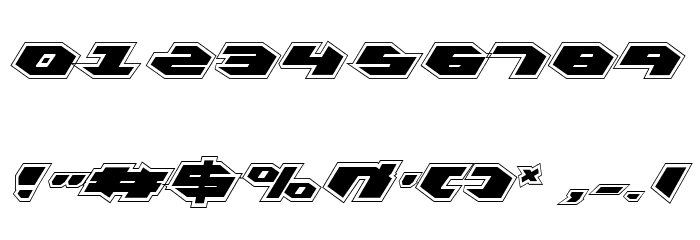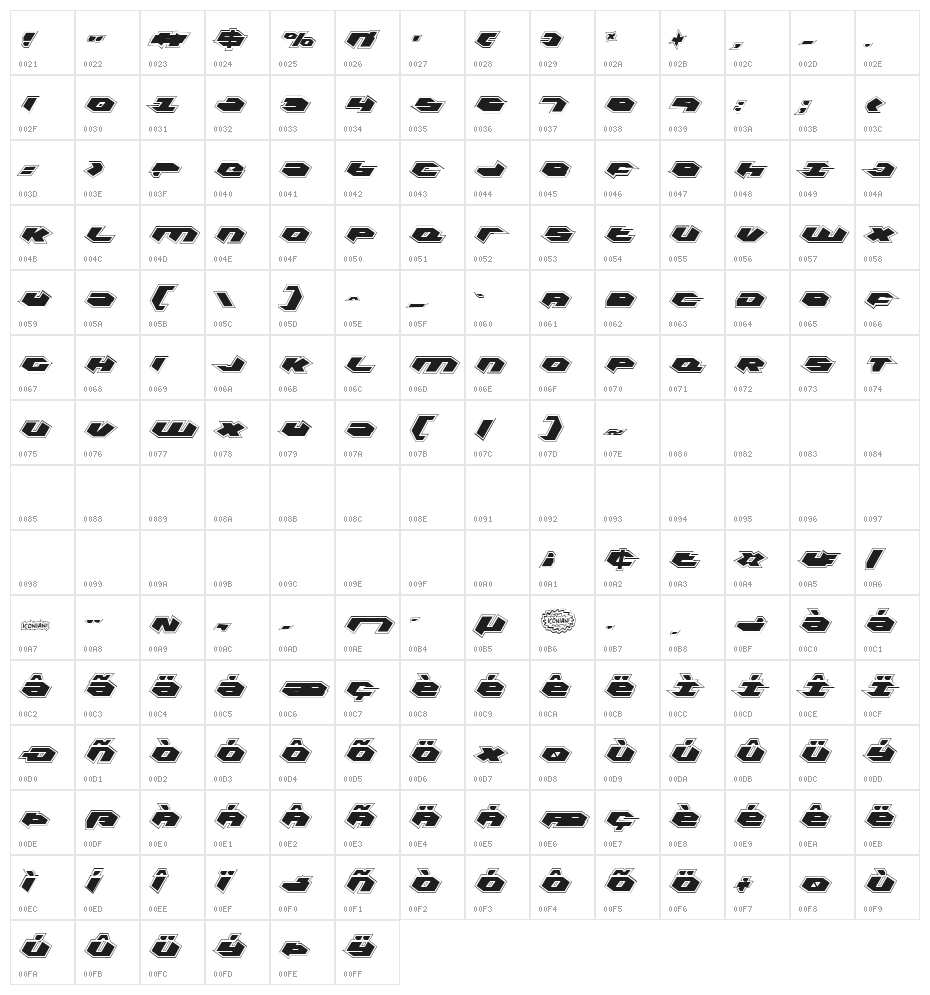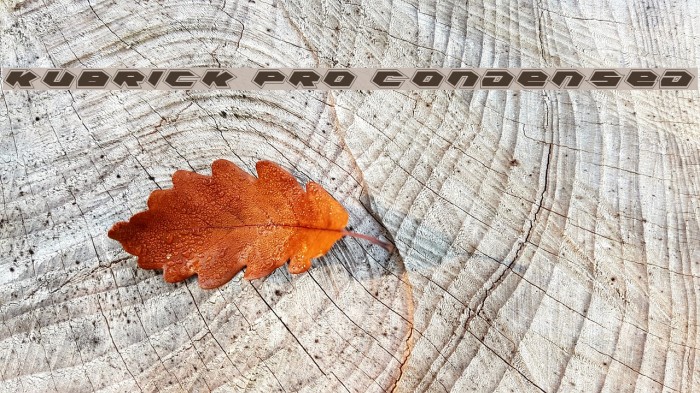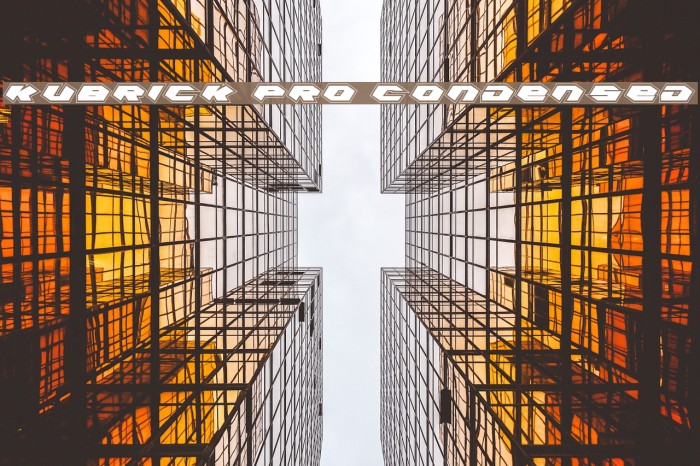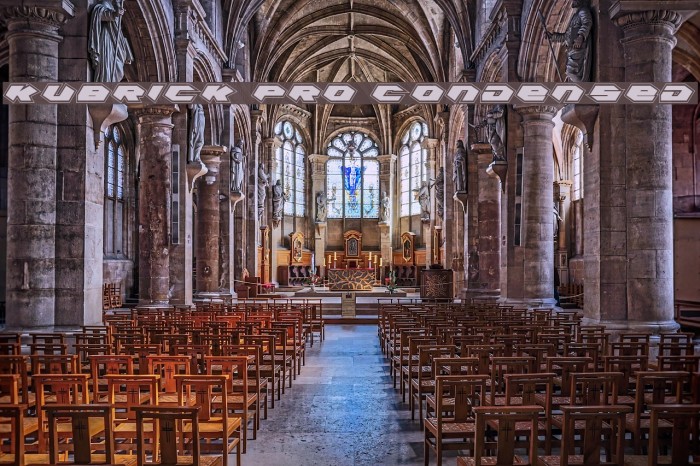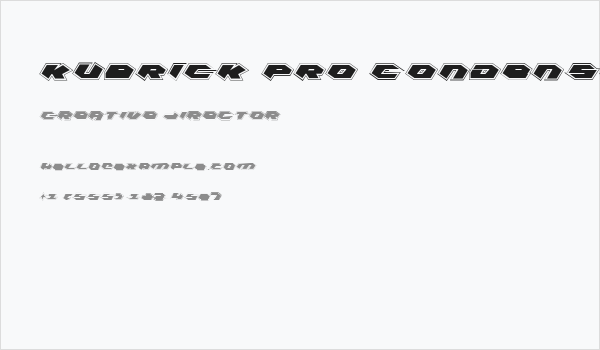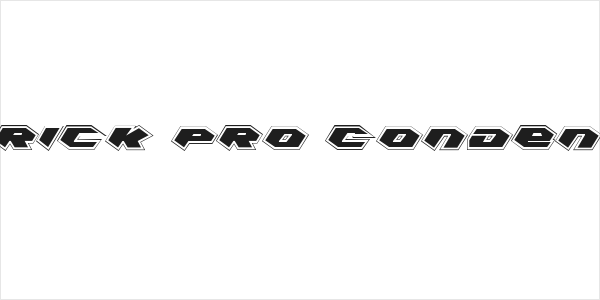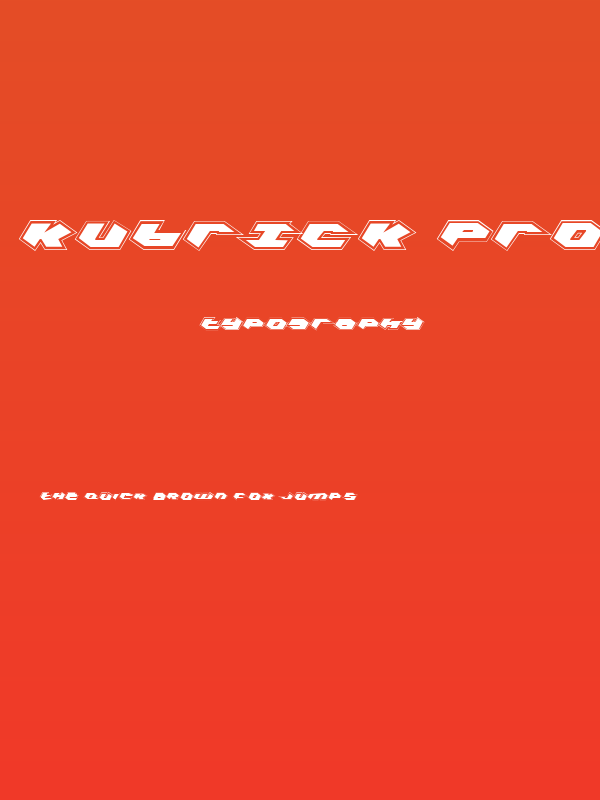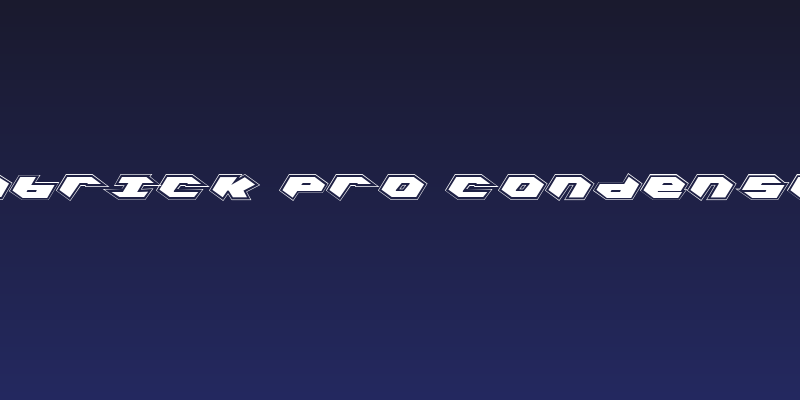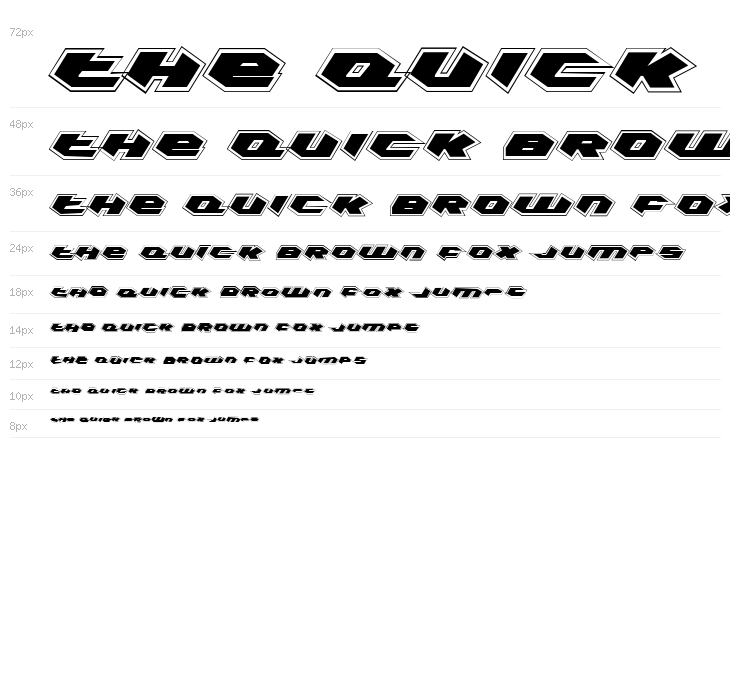
Kubrick Pro Condensed Font
Kubrick Pro Condensed Description
This font features a bold, futuristic design with a distinct geometric style. The characters are outlined, creating a three-dimensional effect that adds depth and visual interest. The angular shapes and sharp edges give it a dynamic and modern appearance, making it stand out in any design. The condensed width allows for efficient use of space, while the consistent stroke thickness provides a uniform look. This font is perfect for projects that require a strong, impactful presence.
| Proposed Projects | Ideal for sci-fi themed designs, video game titles, posters, and branding that requires a modern, edgy look. |